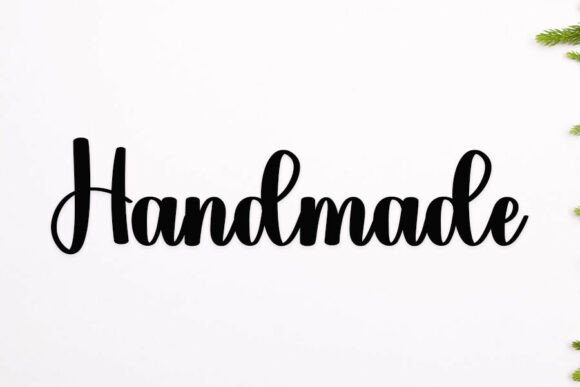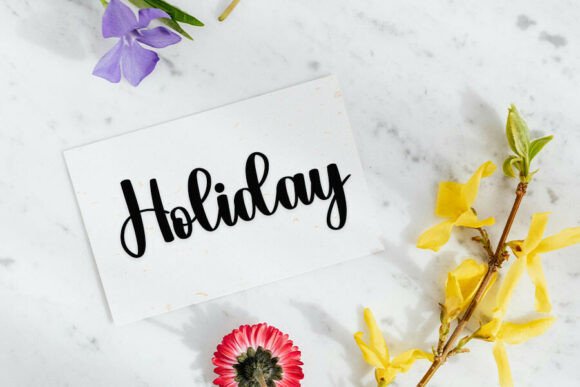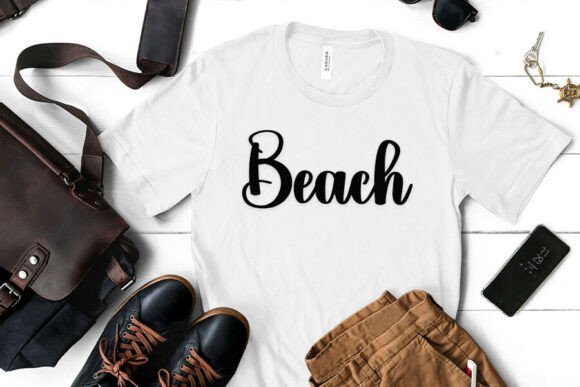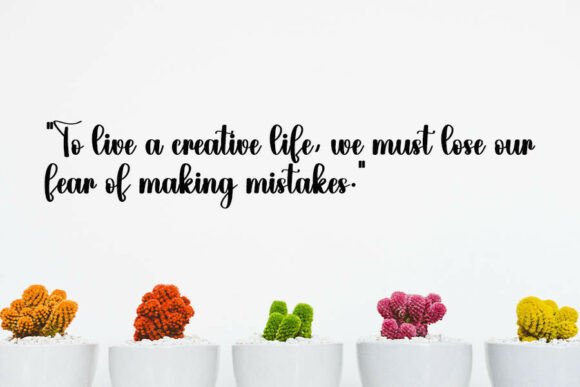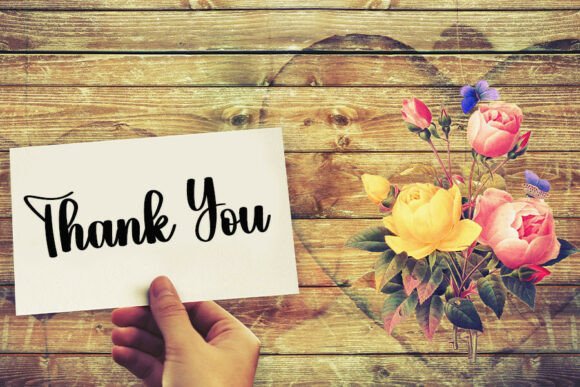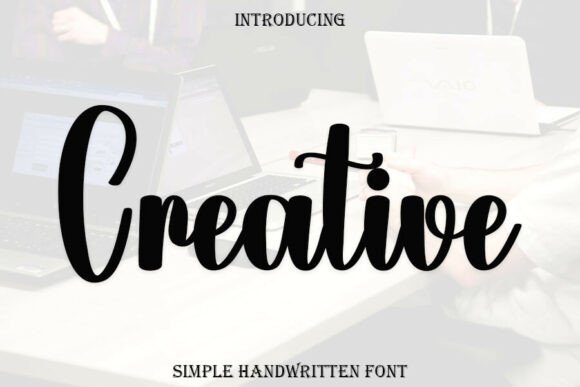
Introducing Creative Font: The Sweet and Elegant Cursive Handwritten Font
Are you looking for a font that can add a touch of elegance and romance to your designs? Look no further than Creative Font, a beautiful and versatile cursive handwritten font that’s perfect for a wide range of projects. In this article, we’ll explore the features and benefits of Creative Font, and show you how to make the most of this gorgeous font in your designs.
What is Creative Font?
Creative Font is a sweet and cursive handwritten font that’s designed to add a touch of joy and romance to your designs. With its gentle and flowing curves, this font is perfect for creating elegant and sophisticated designs that are sure to impress. Whether you’re working on a branding project, a wedding invitation, or a fashion lookbook, Creative Font is the perfect choice.
Key Features of Creative Font
• Handwritten cursive style: Creative Font features a beautiful handwritten cursive style that’s perfect for creating elegant and sophisticated designs.
• Versatile: This font is versatile and can be used for a wide range of projects, from branding and logos to wedding invitations and greeting cards.
• Elegant and casual: Creative Font strikes the perfect balance between elegance and casualness, making it perfect for designs that need to look fancy and sophisticated, but still approachable.
• Easy to read: Despite its elegant style, Creative Font is easy to read, making it perfect for body text and other applications where readability is important.
Use Cases for Creative Font
Creative Font is perfect for a wide range of design projects, including:
• Branding and logos: Create a lasting impression with a beautiful and elegant logo that showcases your brand’s personality.
• Wedding invitations and things: Add a touch of romance and elegance to your wedding invitations, save-the-dates, and other wedding-related designs.
• Greeting cards: Create beautiful and heartfelt greeting cards for special occasions, such as birthdays, anniversaries, and holidays.
• Fashion and lookbooks: Add a touch of elegance and sophistication to your fashion designs, lookbooks, and marketing materials.
• Marketing promotions: Create eye-catching and effective marketing materials, such as brochures, flyers, and posters, that showcase your brand’s personality.
Tips for Using Creative Font
Here are some tips for getting the most out of Creative Font:
• Use it as a headline font: Creative Font is perfect for headlines and titles, where its elegant style can really shine.
• Pair it with a sans-serif font: Pair Creative Font with a sans-serif font, such as Arial or Helvetica, to create a beautiful and contrasting design.
• Experiment with font sizes and colors: Don’t be afraid to experiment with different font sizes and colors to create a unique and eye-catching design.
• Use it for body text: While Creative Font is elegant and sophisticated, it’s also easy to read, making it perfect for body text and other applications where readability is important.